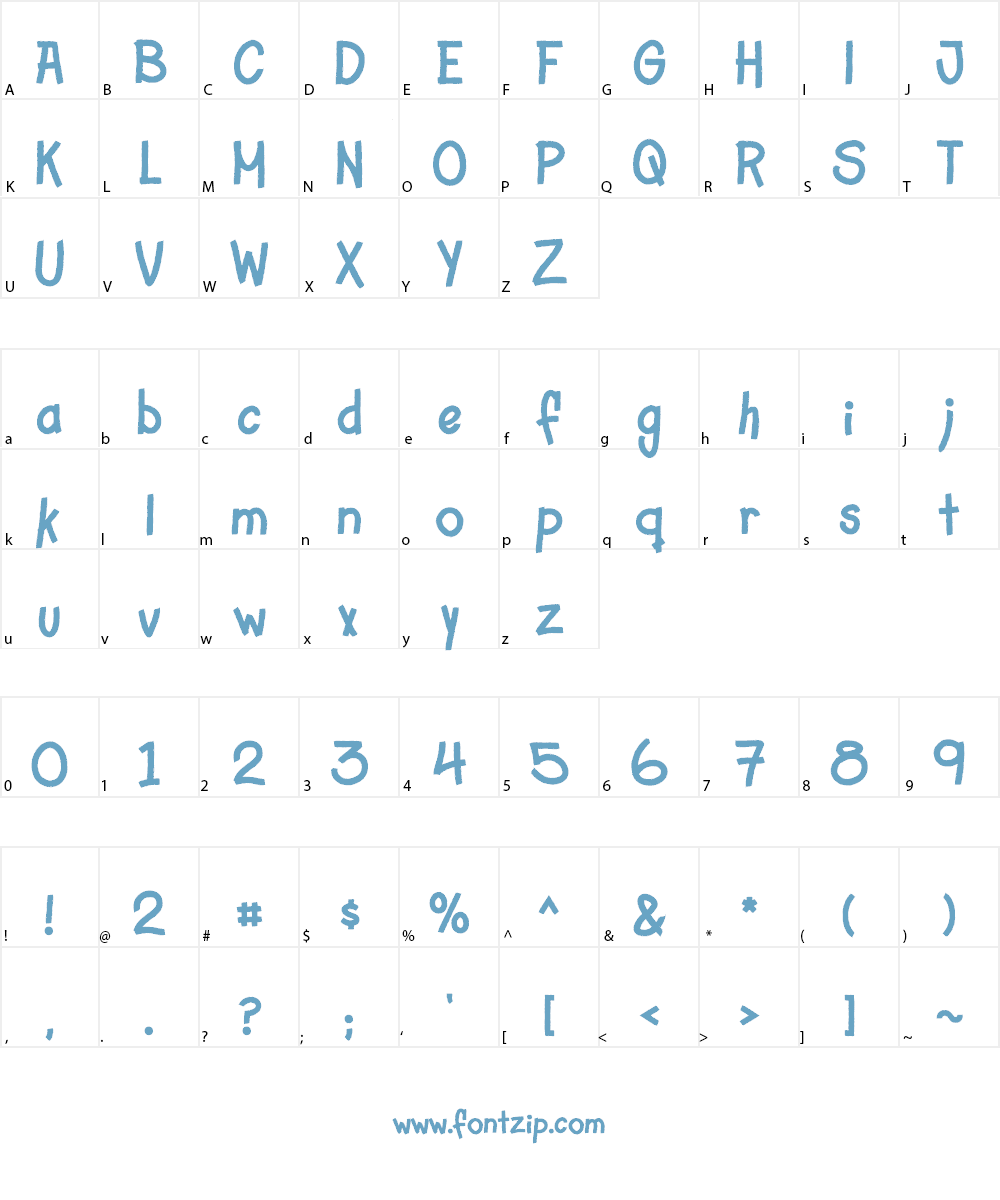
Cipote is a fun and crafty cool looking font created for my son’s personal brand, with subtle rough edges to show clearly the strong attention to detail of that hand crafted style, made with lots and lots of heart. If you need a commercial license follow the link here: http://hellodonmarciano.com/v1/license/